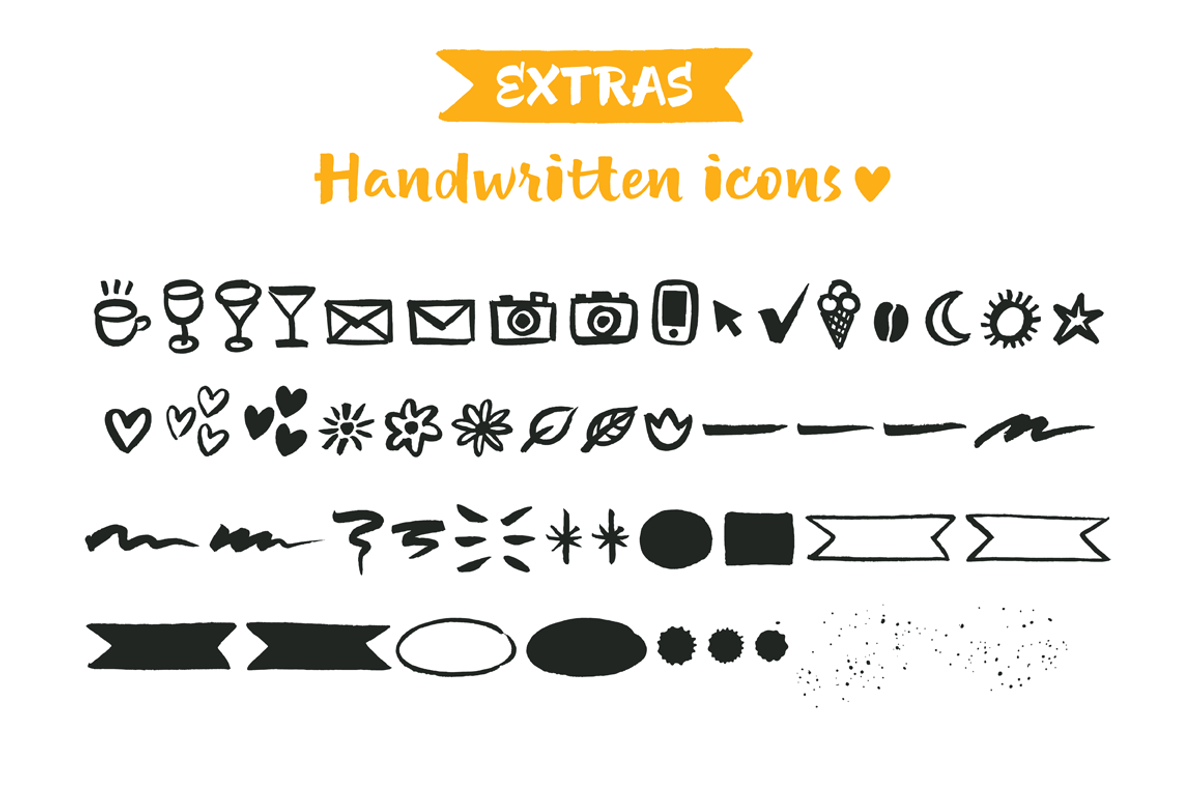
Luna Brush Script + Extras
Luna Brush is a fresh handwritten script based on informal calligraphy.
Luna Brush Script includes OpenType features – ligatures and stylistic alternates for lowercases and capital letters.
Luna Brush Extras includes a set of icons and swashes that can help you to add some personal charm to your designs, so it is perfect for branding, packaging, titling, posters, greeting cards, blogs, etc.